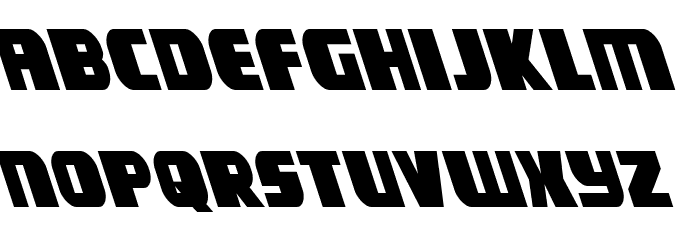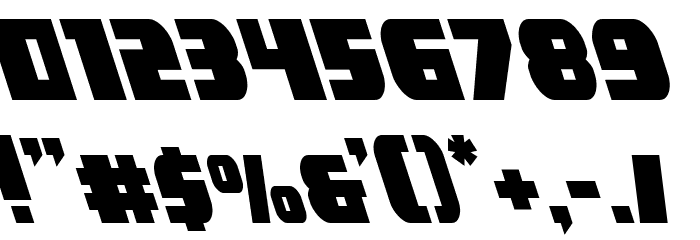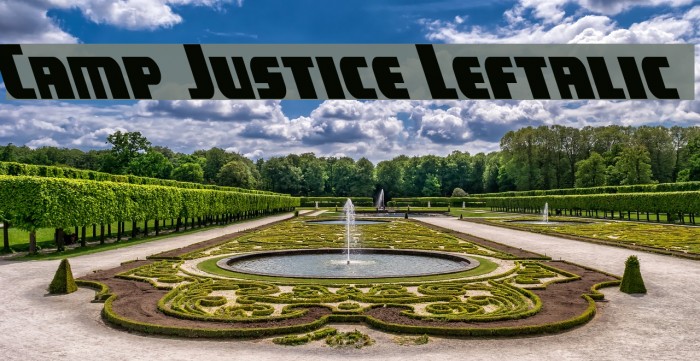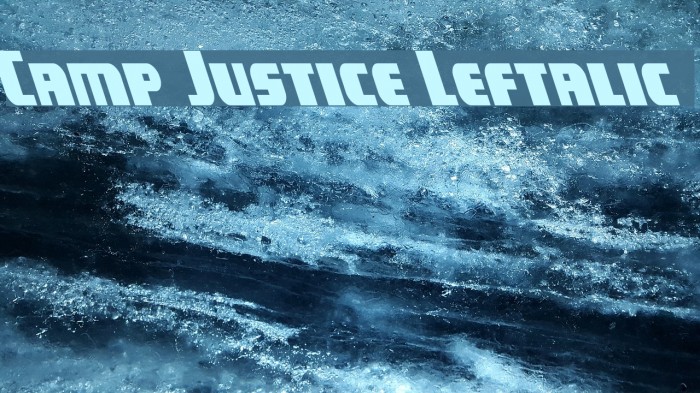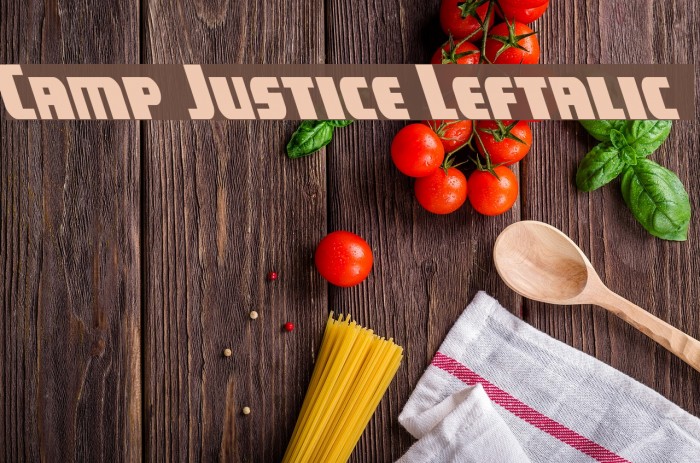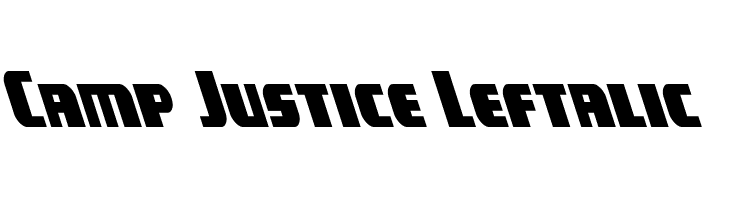
Camp Justice Leftalic Font
This font features a bold, dynamic style with a distinct slant to the left, giving it a sense of movement and urgency. The characters are wide and blocky, with sharp angles and a strong presence. The uppercase and lowercase letters maintain a consistent weight, contributing to a uniform appearance. The numerals and special characters are designed to match the boldness and angularity of the alphabet, ensuring a cohesive look across all text. This font's unique style makes it stand out, making it suitable for attention-grabbing designs.
A bold, left-leaning font with wide, angular characters.
- Proposed Projects: Ideal for posters, sports branding, video game titles, and dynamic advertising campaigns.
- Width: Expanded